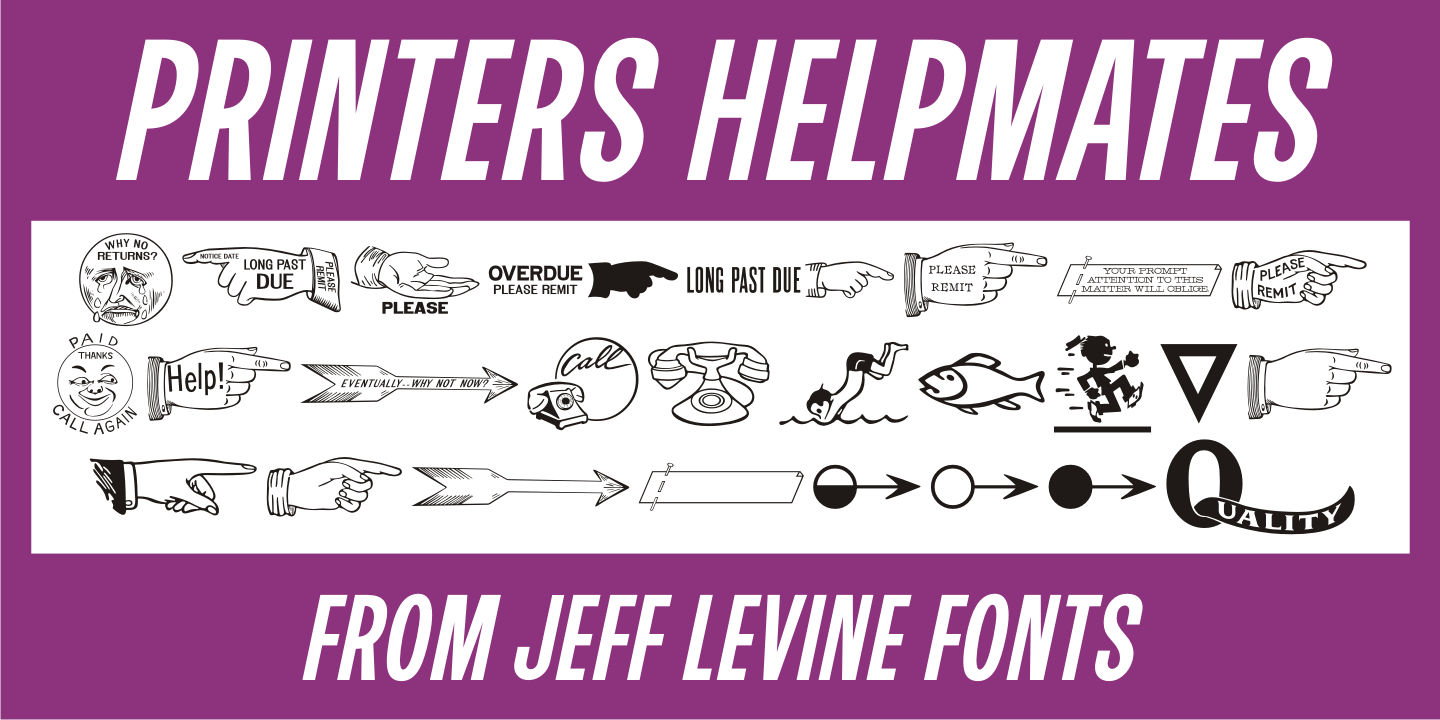
Printers Helpmates
The collection of letterpress cuts included in Printers Helpers JNL offers a generous helping of billing and accounting helpers along with the usual assortment of pointing hands, stylized arrows, cartoon embellishments and other miscellaneous images.